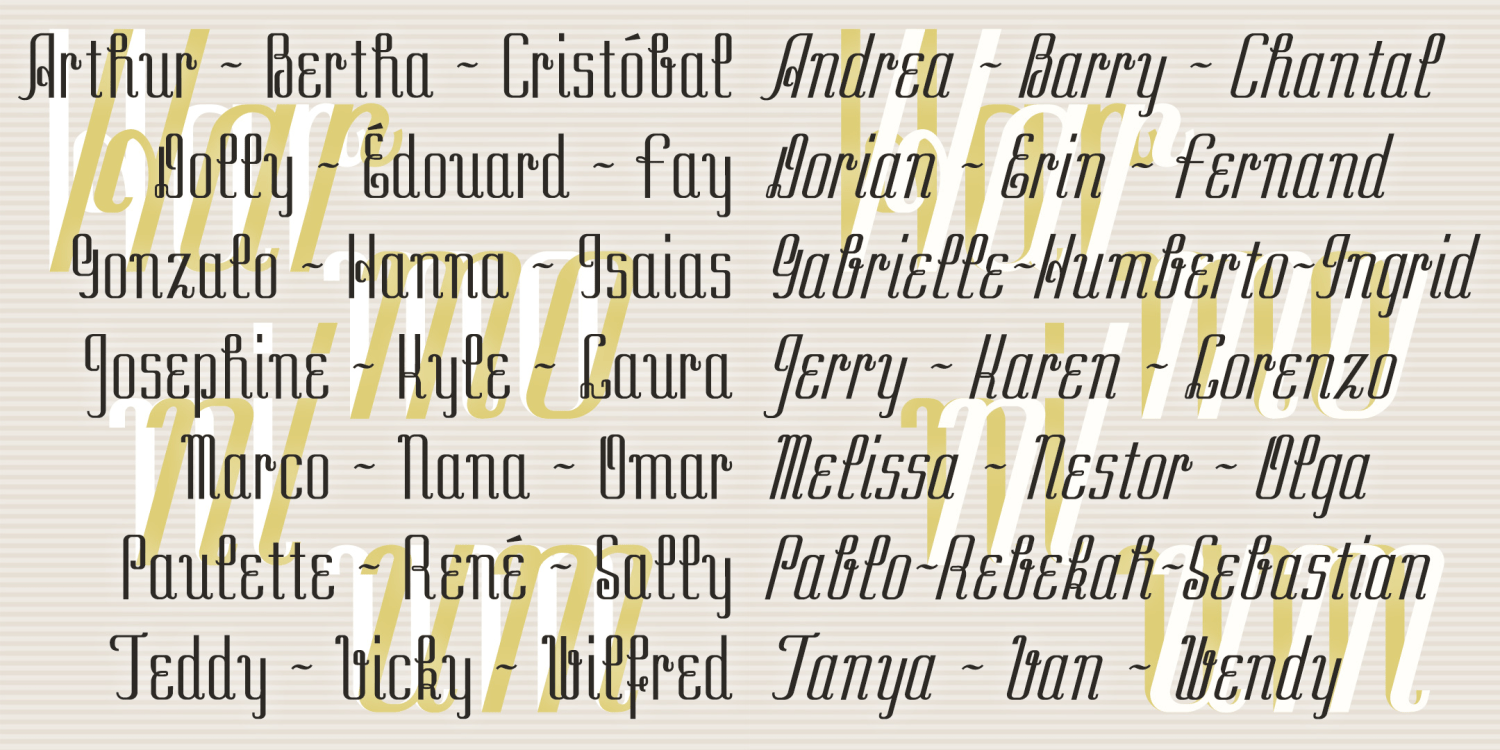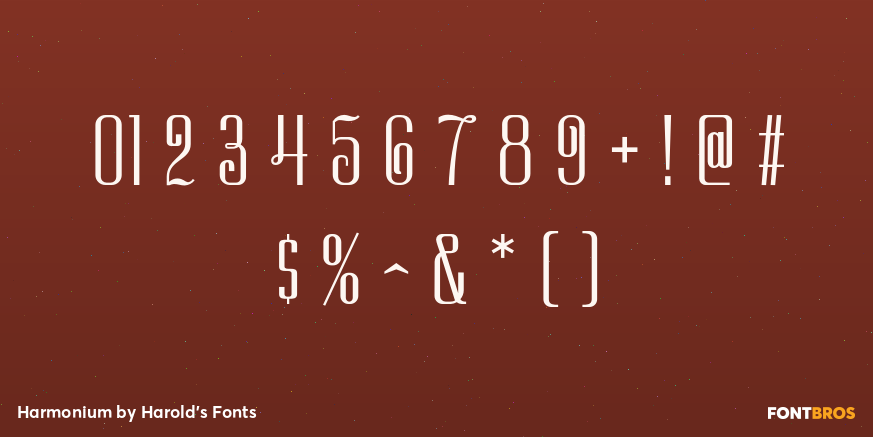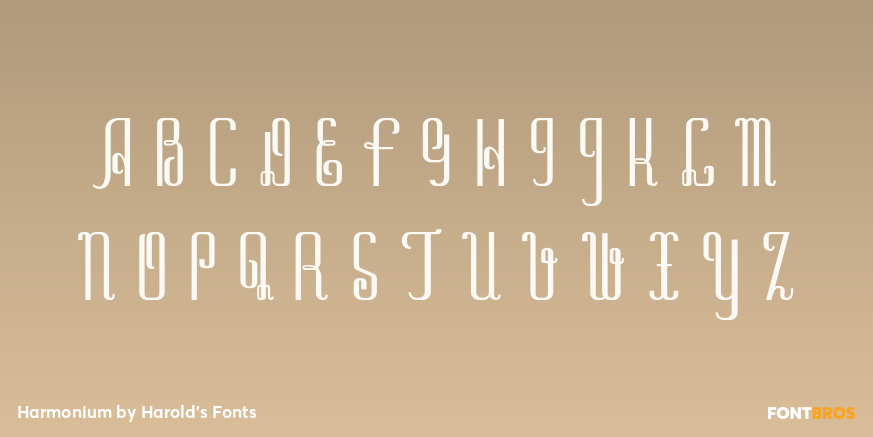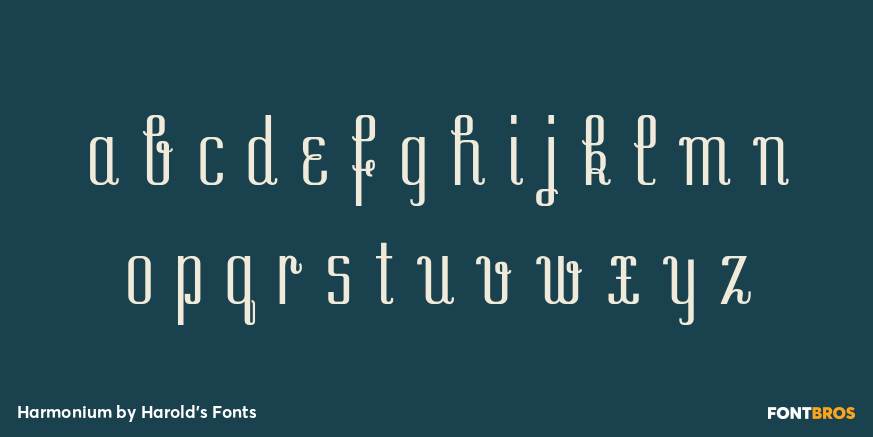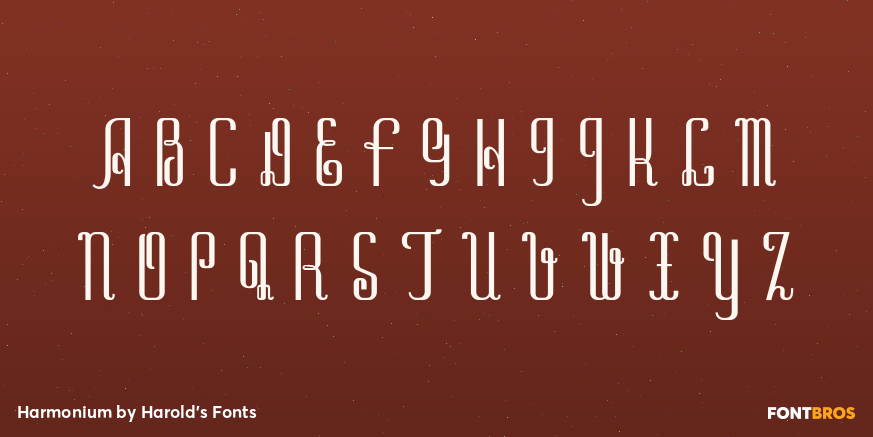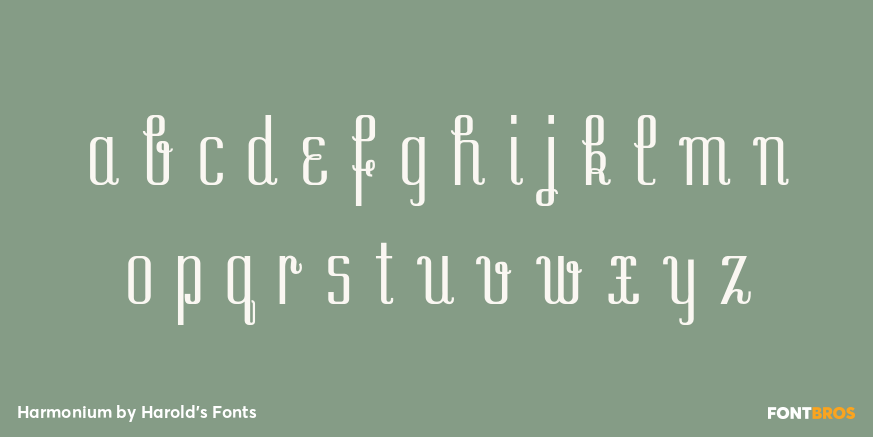
Harmonium
Font Style by Harold's Fonts
Harmonium is a beautiful and unusual pair of fonts. With the flare of cursive, Harmonium adds exotic elegance in a narrow format. It was inspired by an entry in a 1954 lettering guide. The original design, in only the very sloped style, was recommended for "modern advertising." I also created a Regular (roman) style for more versatility.